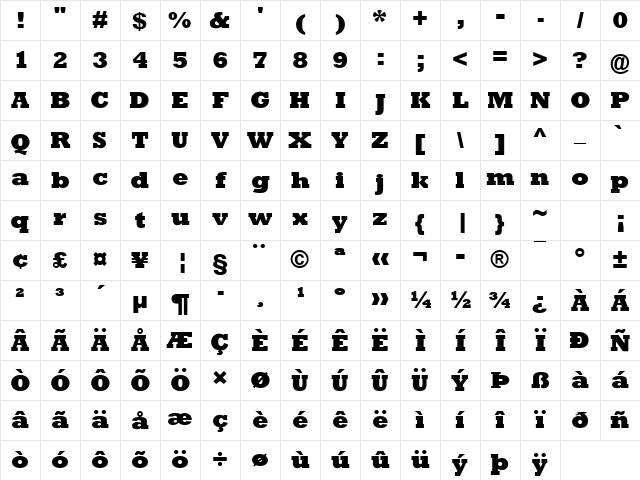
Rockwell MT Extra Bold Regular
Foundry: Agfa Monotype Corporation
Design Context for Rockwell MT Extra Bold
Rockwell MT Extra Bold is a composed and adaptable typeface that performs quietly and consistently across a wide range of design contexts. Its bold stroke weight gives it real presence on the page.
Who designed the Rockwell MT Extra Bold Regular font?
This font was published by Agfa Monotype Corporation. Check the technical specs section for copyright and designer details.